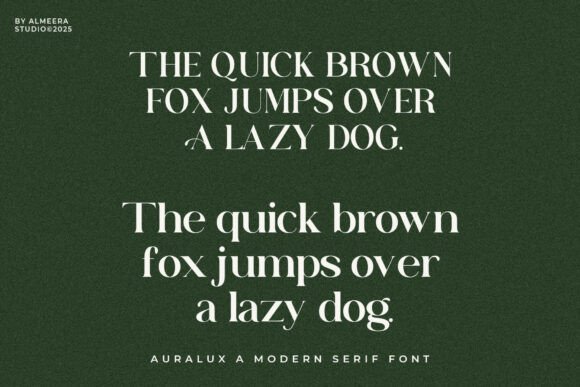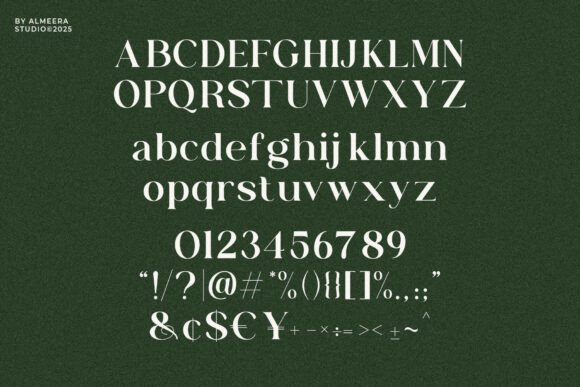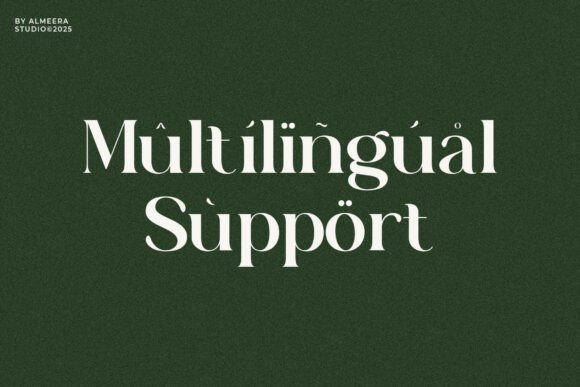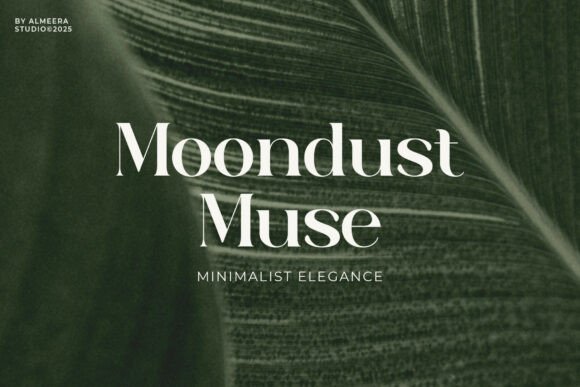
Introducing Auralux Font: Elevate Your Designs with Modern Elegance
In the world of typography, a font can make or break a design. For designers and crafters looking for a modern touch, Auralux Font is here to revolutionize your creative projects. This stunning modern serif font is designed to cater to a wide range of needs, from branding and logos to social media posts, advertisements, and more.
The Versatility of Auralux Font
Auralux Font is not just another typeface; it’s a versatile tool that can elevate your designs across various platforms. Whether you’re working on:
- Branding projects: Create a lasting impression with Auralux’s unique and elegant serifs.
- Logos: Stand out from the crowd with a font that exudes modern sophistication.
- Social media posts: Engage your audience with visually appealing text that reflects your brand’s personality.
- Advertisements: Grab attention and drive results with Auralux’s clean and readable design.
- Labels and product packaging: Add a touch of luxury to your products with Auralux’s premium feel.
- Photography: Use Auralux as a watermark or for text overlays to add an artistic flair.
- Wedding designs: Create beautiful invitations, programs, and more with Auralux’s elegant style.
- Watermarks: Protect your work with a stylish and modern watermark.
- Invitation product designs: Design stunning invitations for any occasion.
- Stationery: Elevate your letterheads, business cards, and envelopes with Auralux.
Why Choose Auralux Font?
With so many fonts available, what makes Auralux stand out?
- Modern Design: Auralux boasts a contemporary look that will make your designs instantly recognizable.
- High Readability: The clear and distinct serifs ensure your text is easy to read, even at smaller sizes.
- Flexibility: Use Auralux for both digital and print projects, knowing it will perform exceptionally well in any medium.
- Elegance: Add a touch of sophistication to your designs with Auralux’s refined and luxurious feel.
Tips for Using Auralux Font Effectively
To get the most out of Auralux Font, consider the following tips:
- Pair with Sans-Serifs: Combine Auralux with a clean sans-serif font for a striking contrast.
- Experiment with Weights: Auralux comes in various weights; experiment to find the perfect balance for your design.
- Use for Headings and Body Text: Auralux’s readability makes it suitable for both headings and body text.
Auralux Font is more than just a typeface; it’s a design companion that can elevate your projects to new heights. Its modern elegance, versatility, and readability make it an excellent choice for designers and crafters looking to make a statement. Whether you’re working on a branding project, social media content, or product packaging, Auralux is sure to impress. So why wait? Explore the possibilities with Auralux Font today and discover a world of limitless design potential.